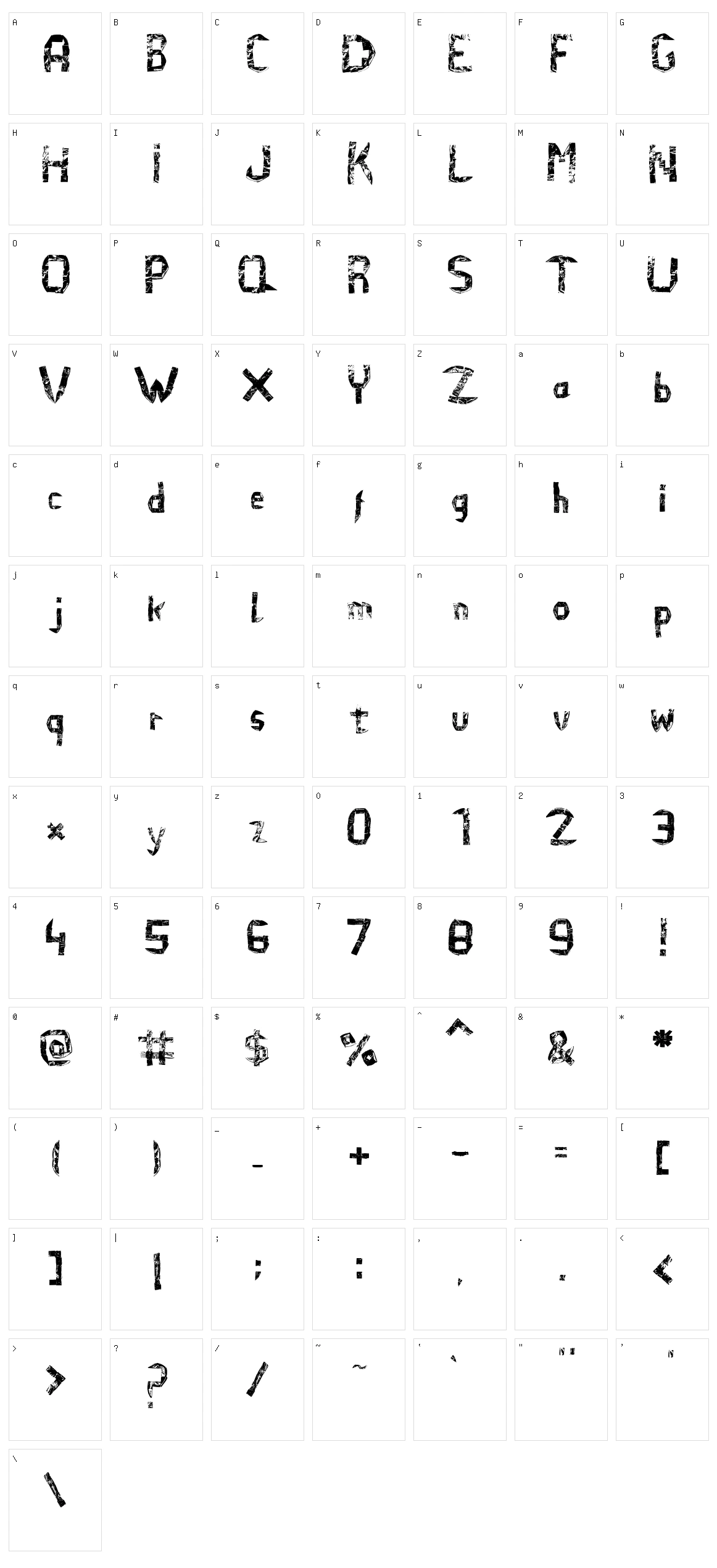
The free font El Efi de Arena is carefully designed by elefidearena.com, showcasing a thoughtful balance of creativity and usability and falls under the Eroded font style. When you download the ZIP file, it contains only 1091.84 KB of font files, making it lightweight and quick to download. Please review the license details below to understand permitted usage and distribution rights. If license information is not available, we recommend using this font for personal projects only or contacting the author directly for commercial usage permissions.